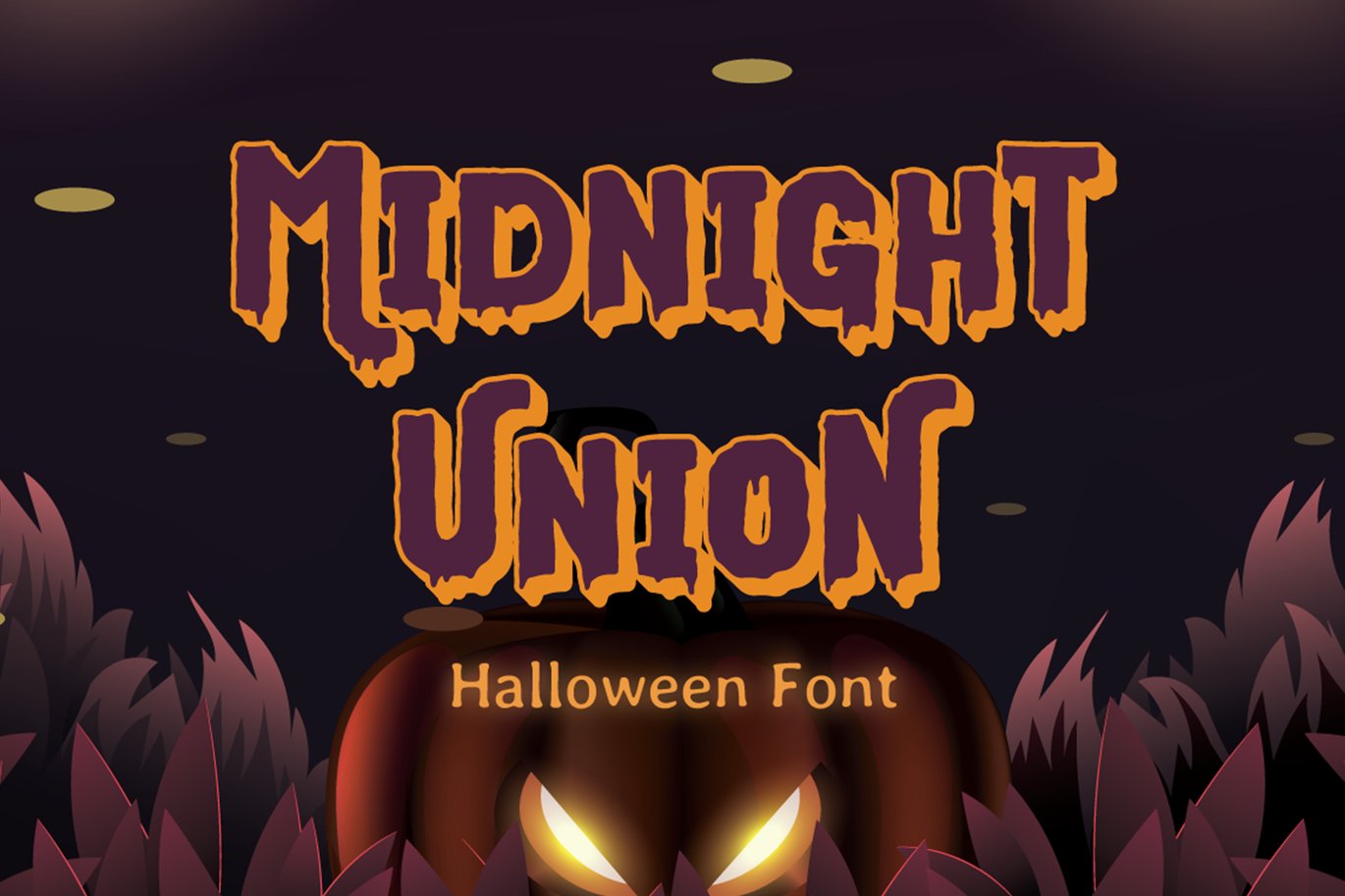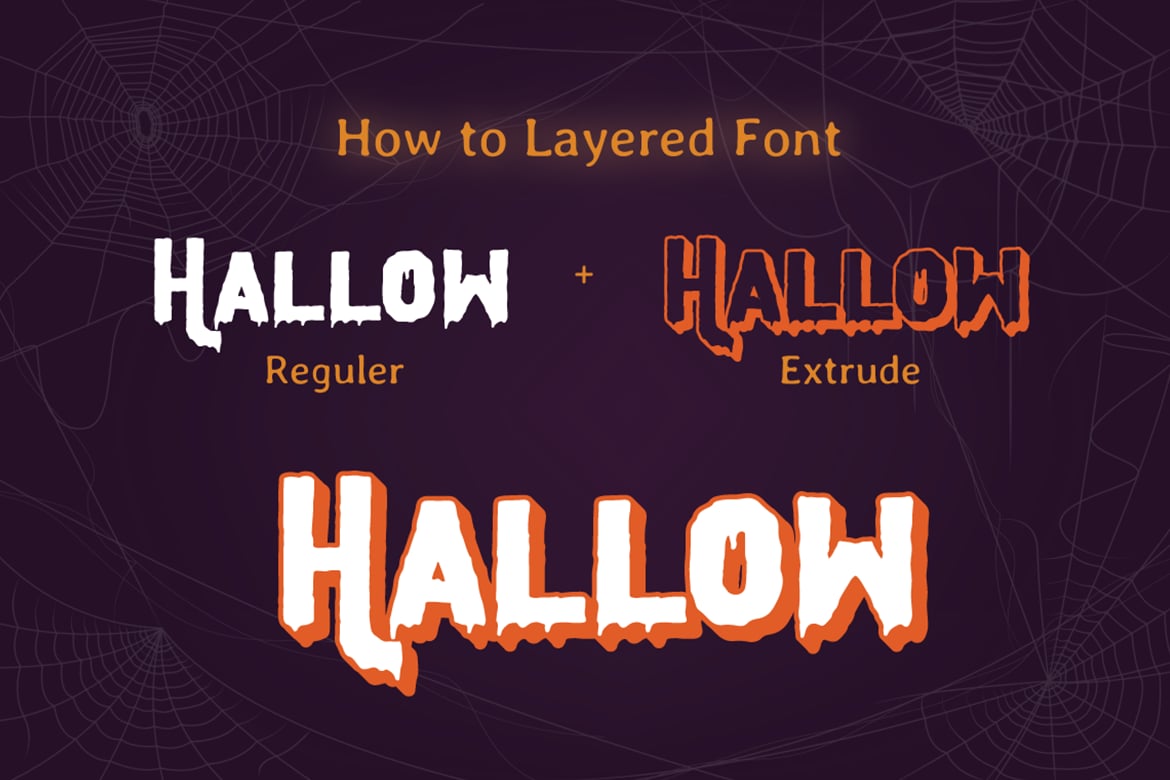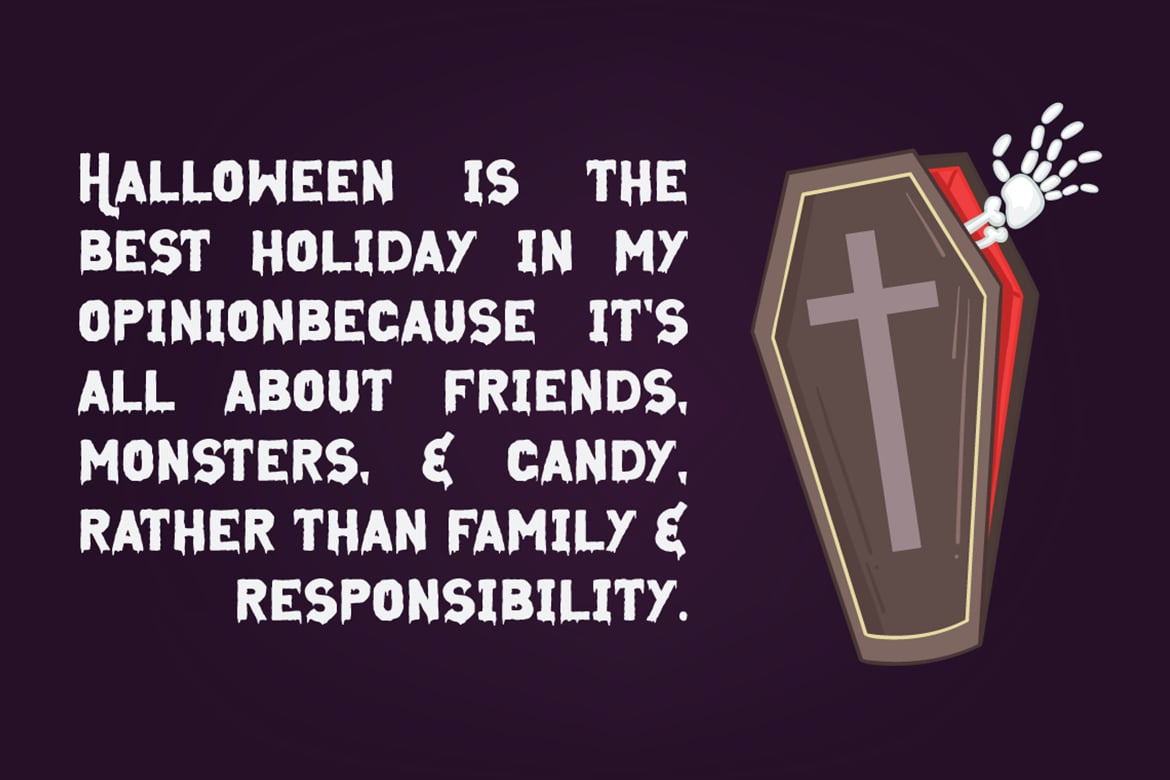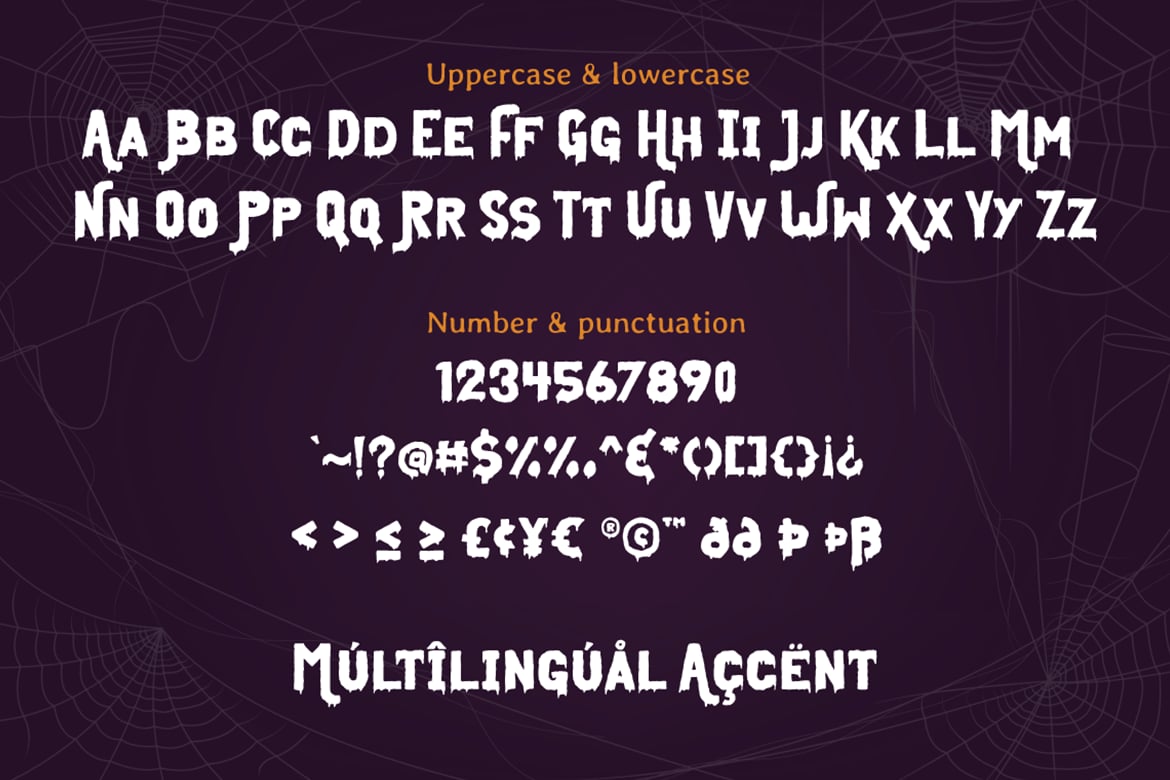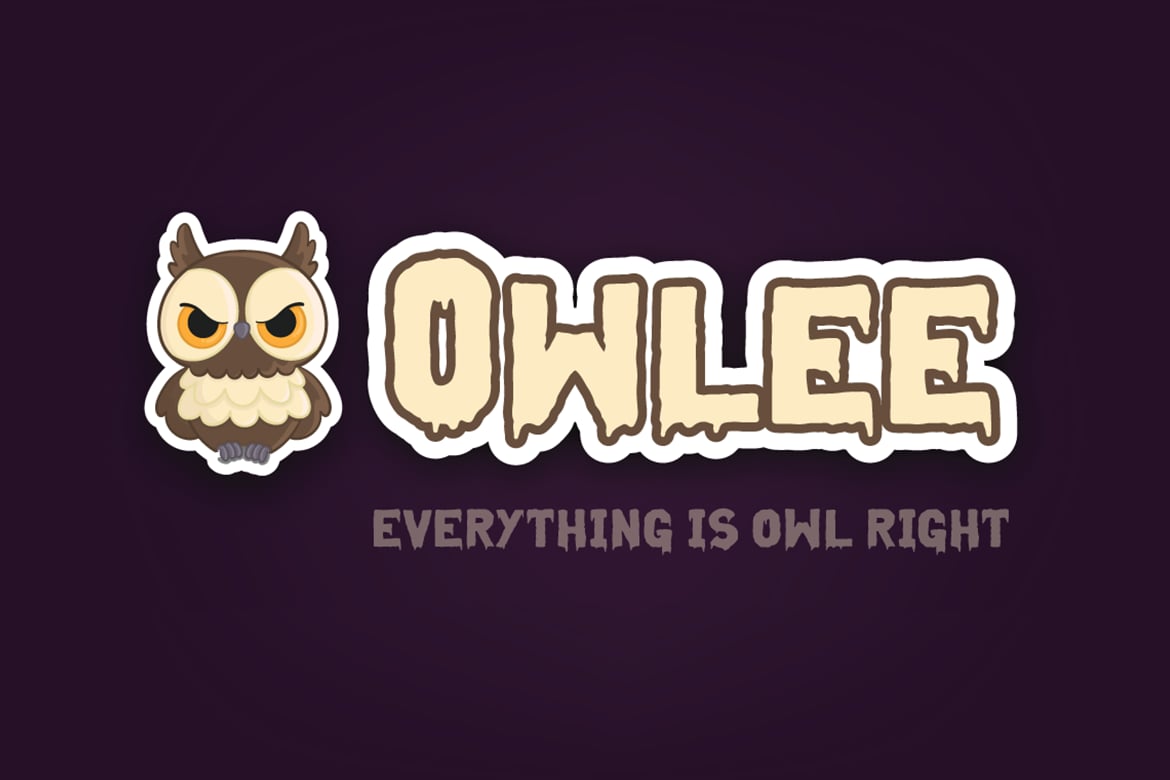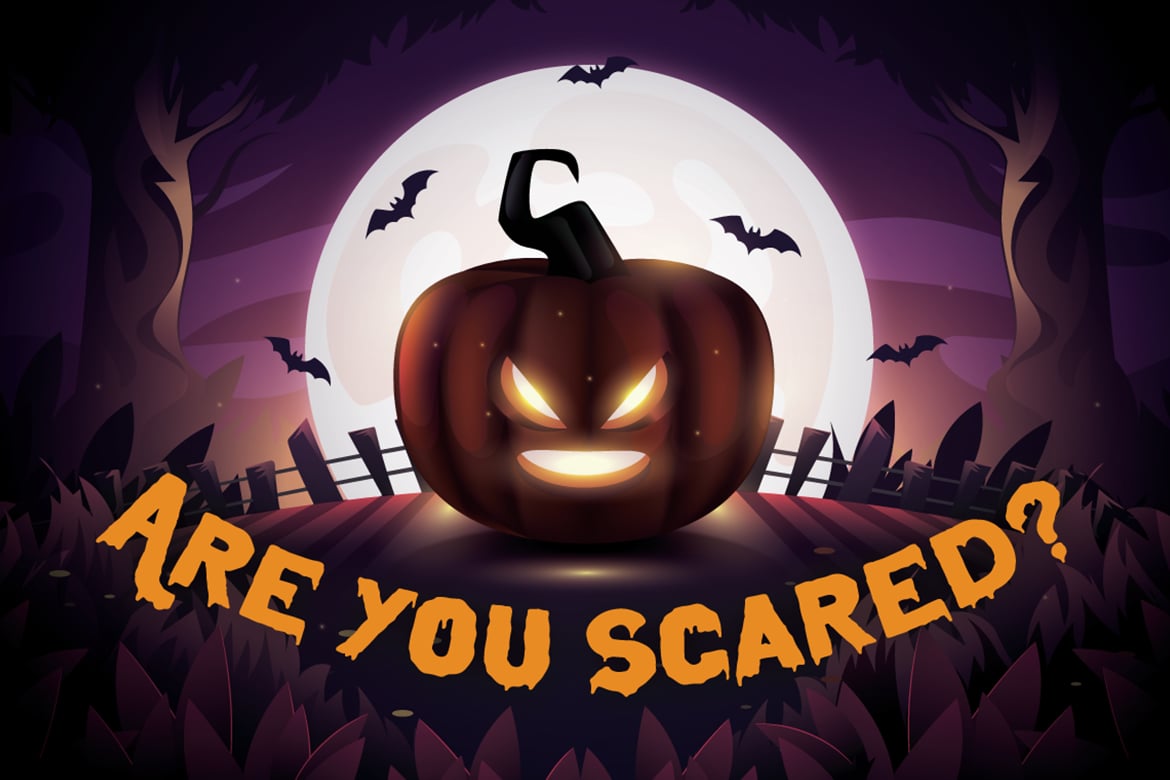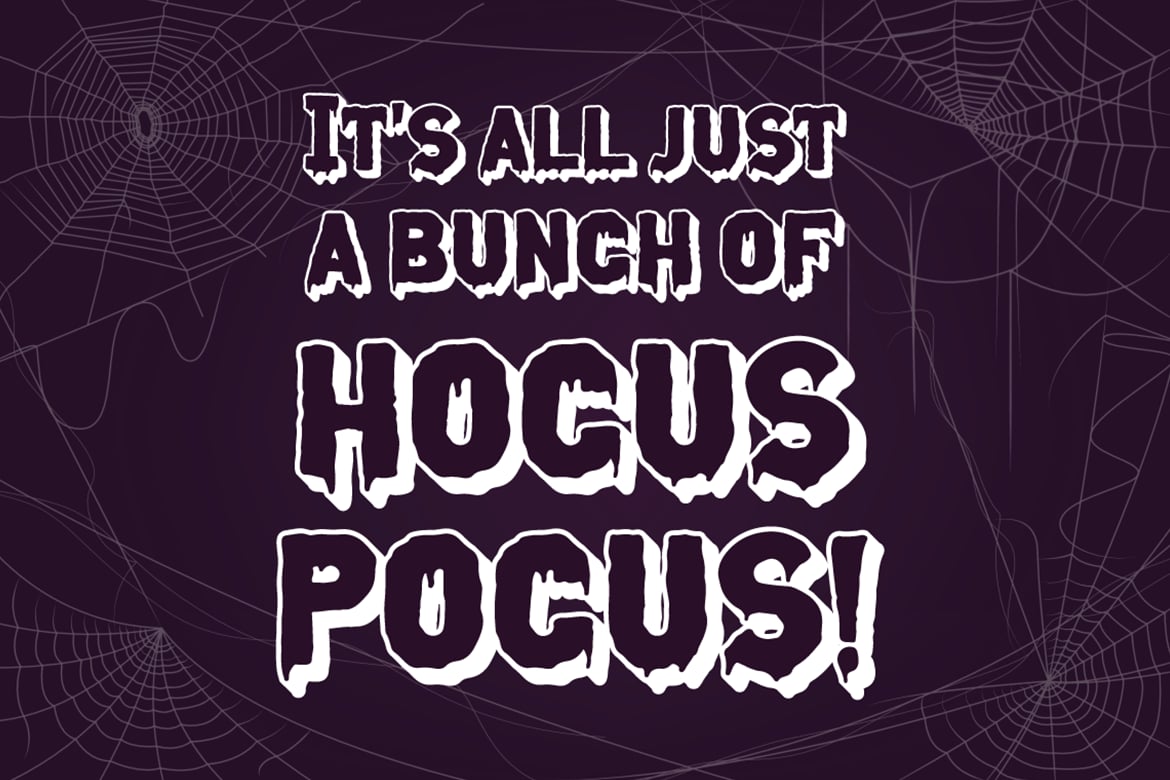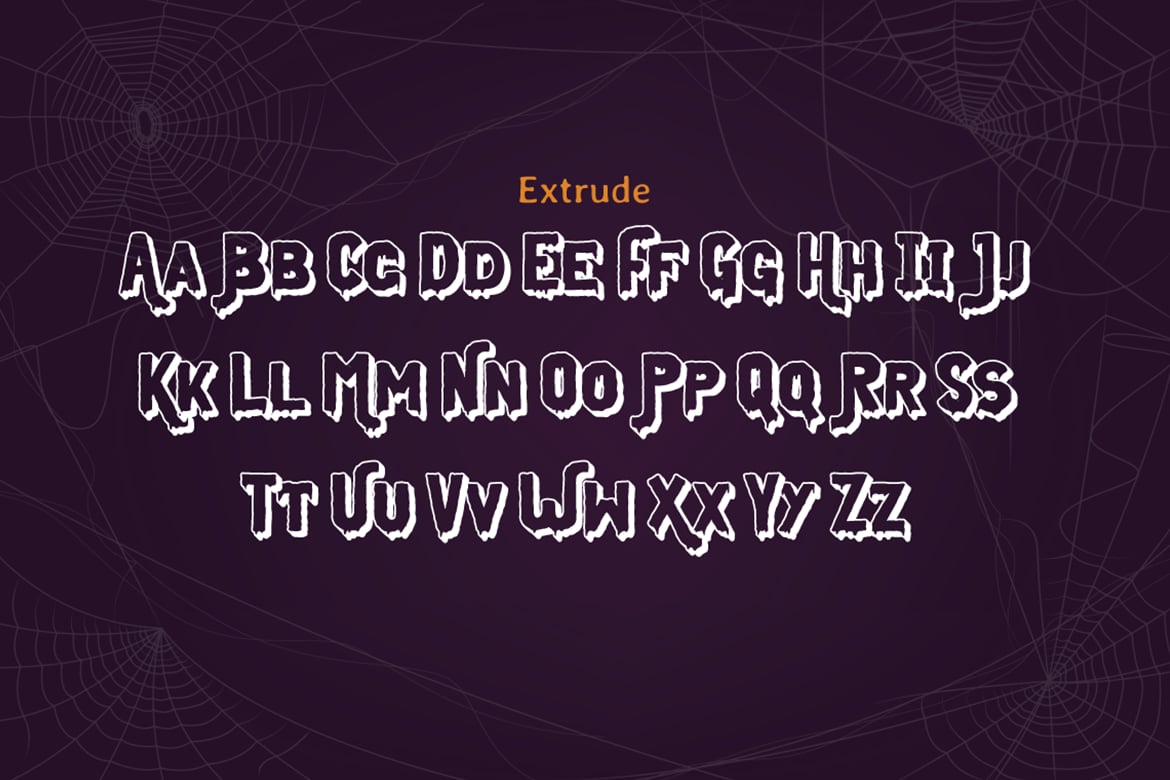
Midnight Union – Halloween Font
Midnight Union is a delicate and incredibly distinct Halloween layered display Font.
Combine it with Midnight Union – Extrude to make an amazing 3D effect on your letter!
Midnight Union perfect for halloween promotion, branding, logo, invitation, stationery, social media post, product packaging, merchandise, blog design, game titles, cute style design, Book/Cover Title and more.